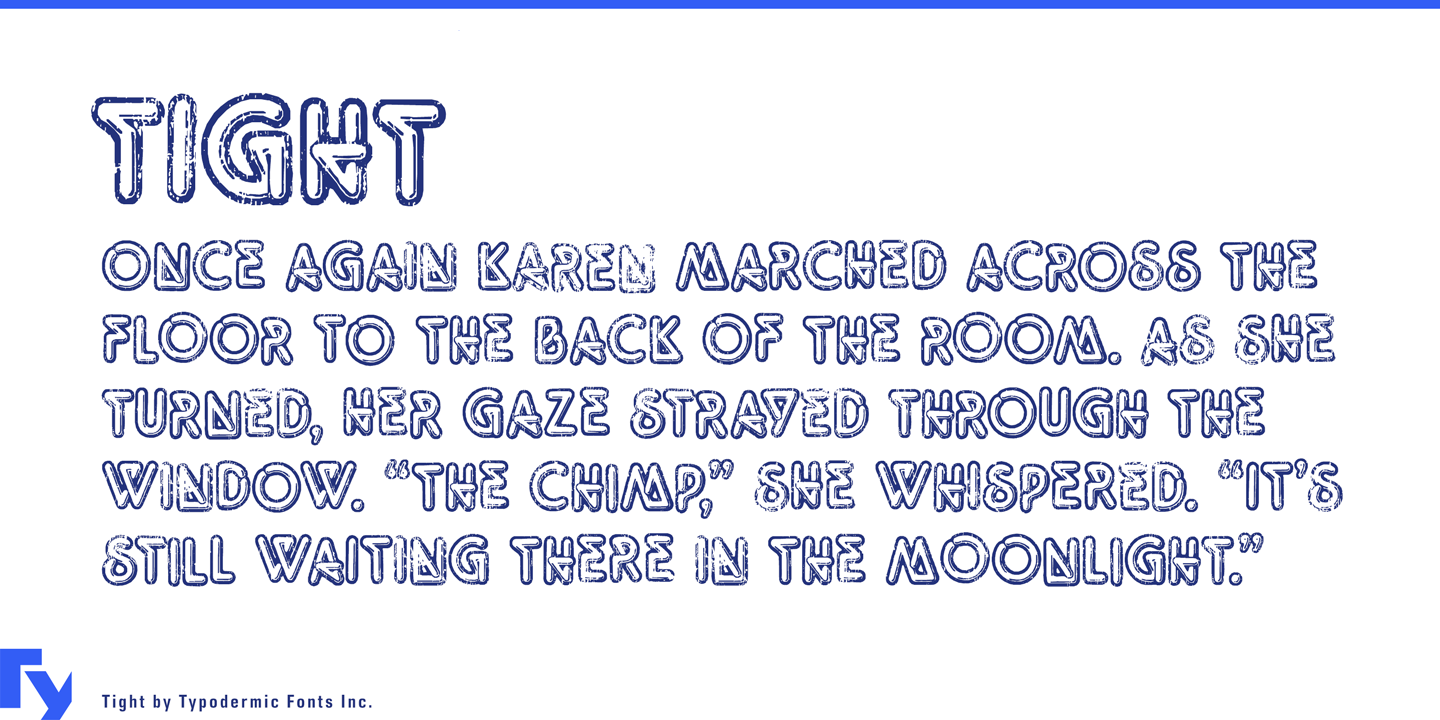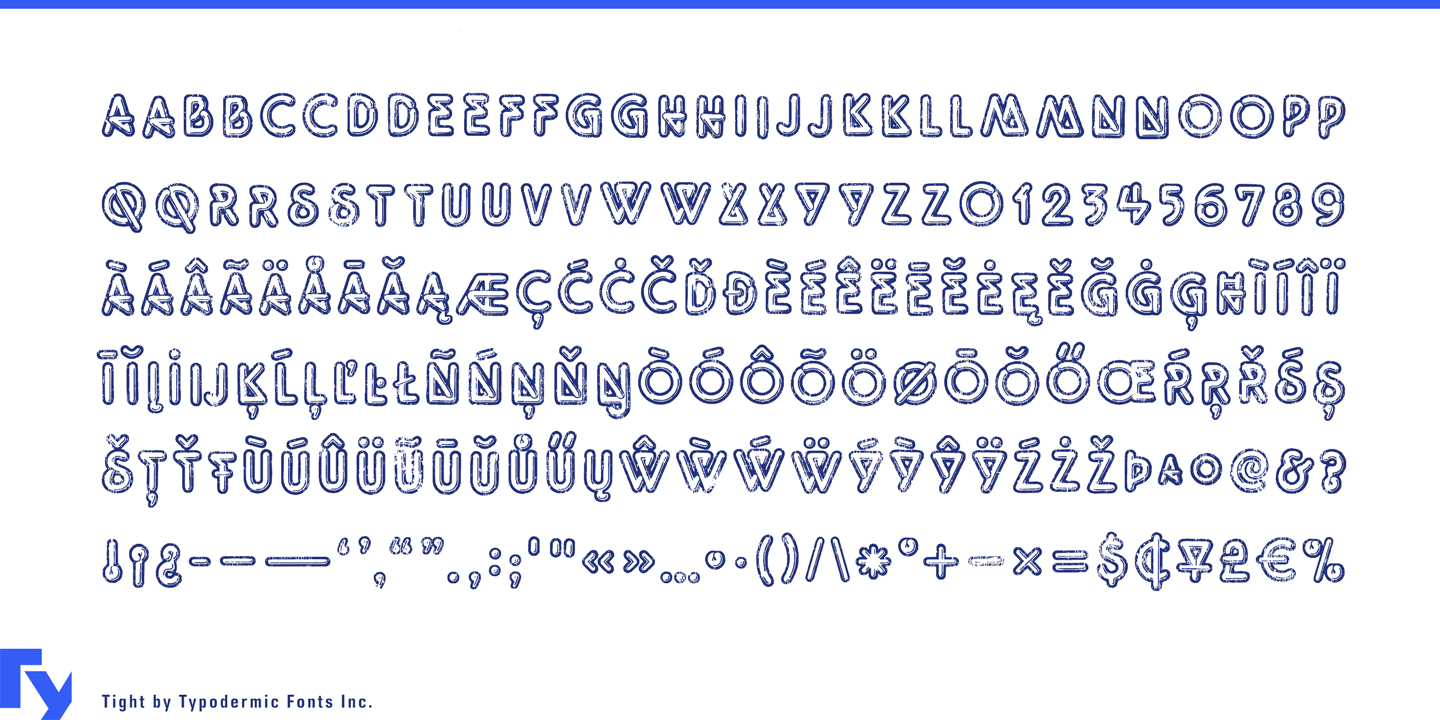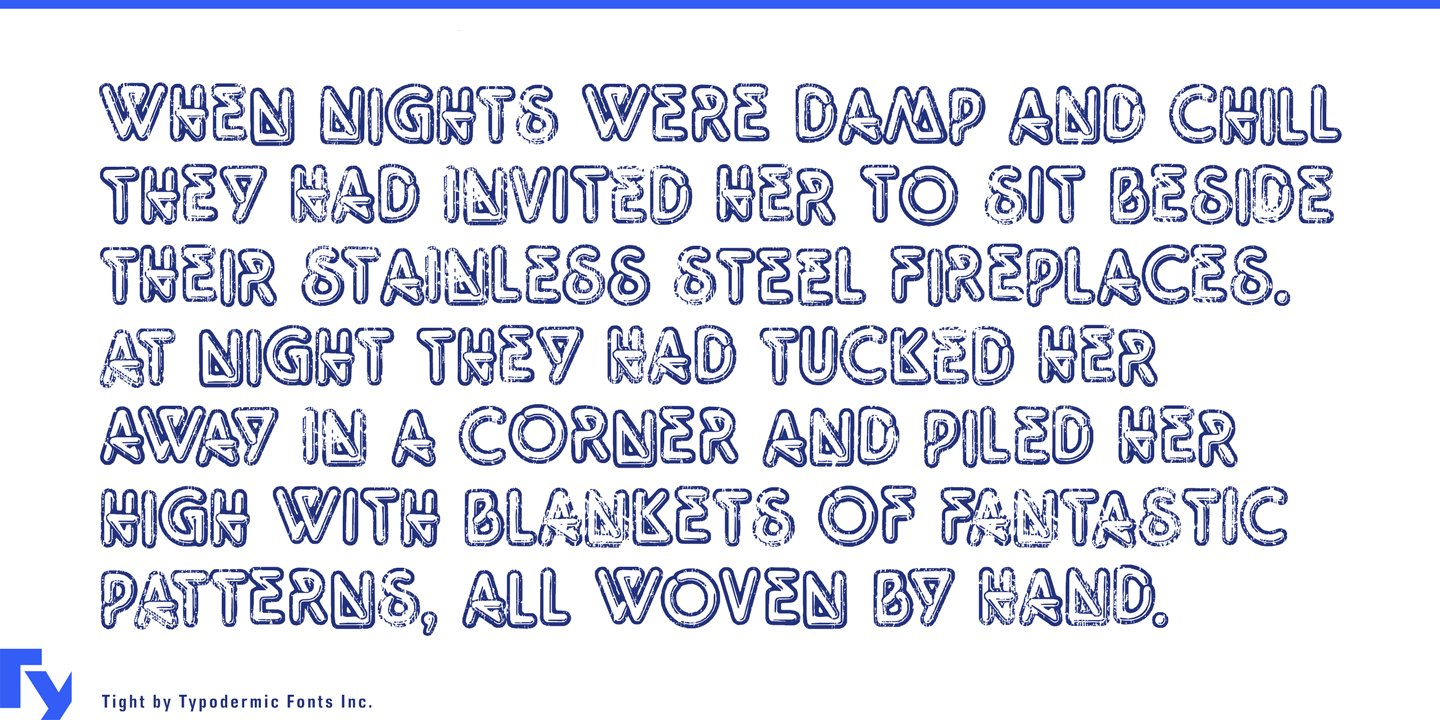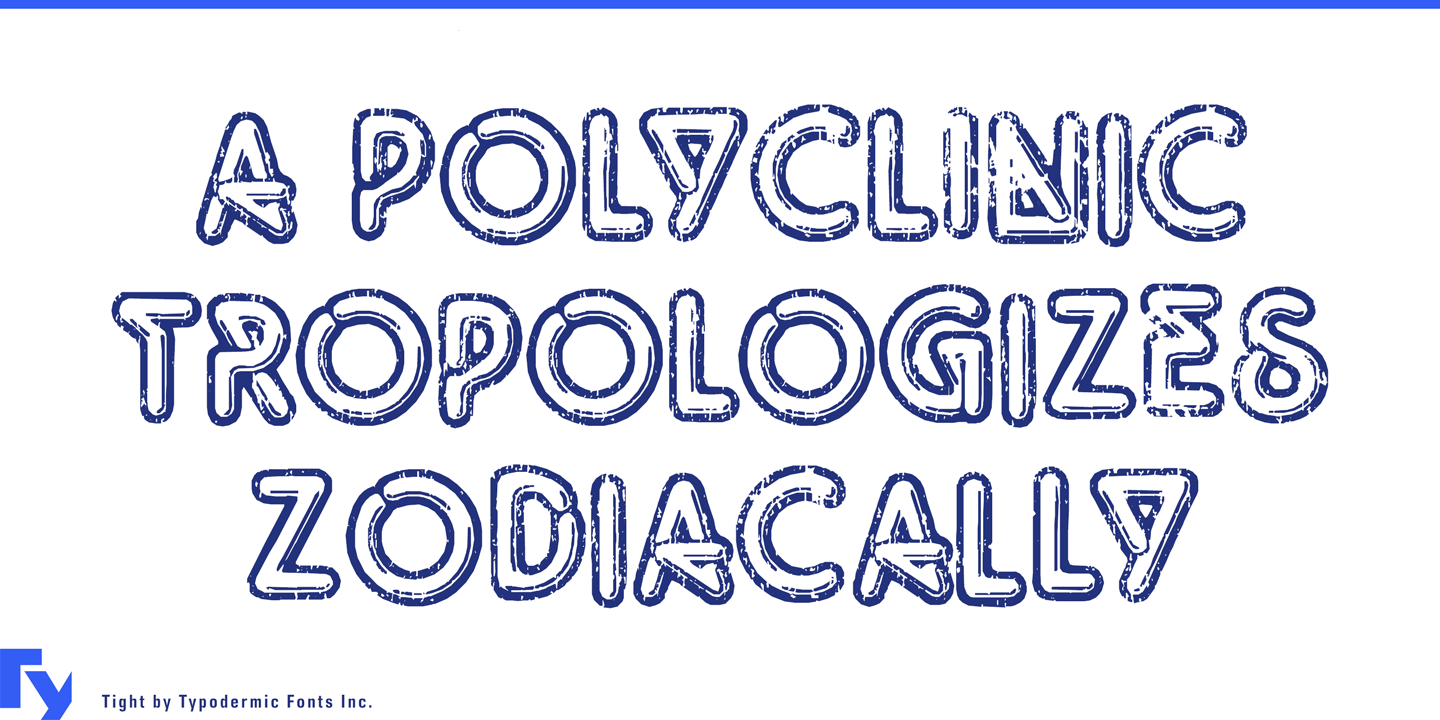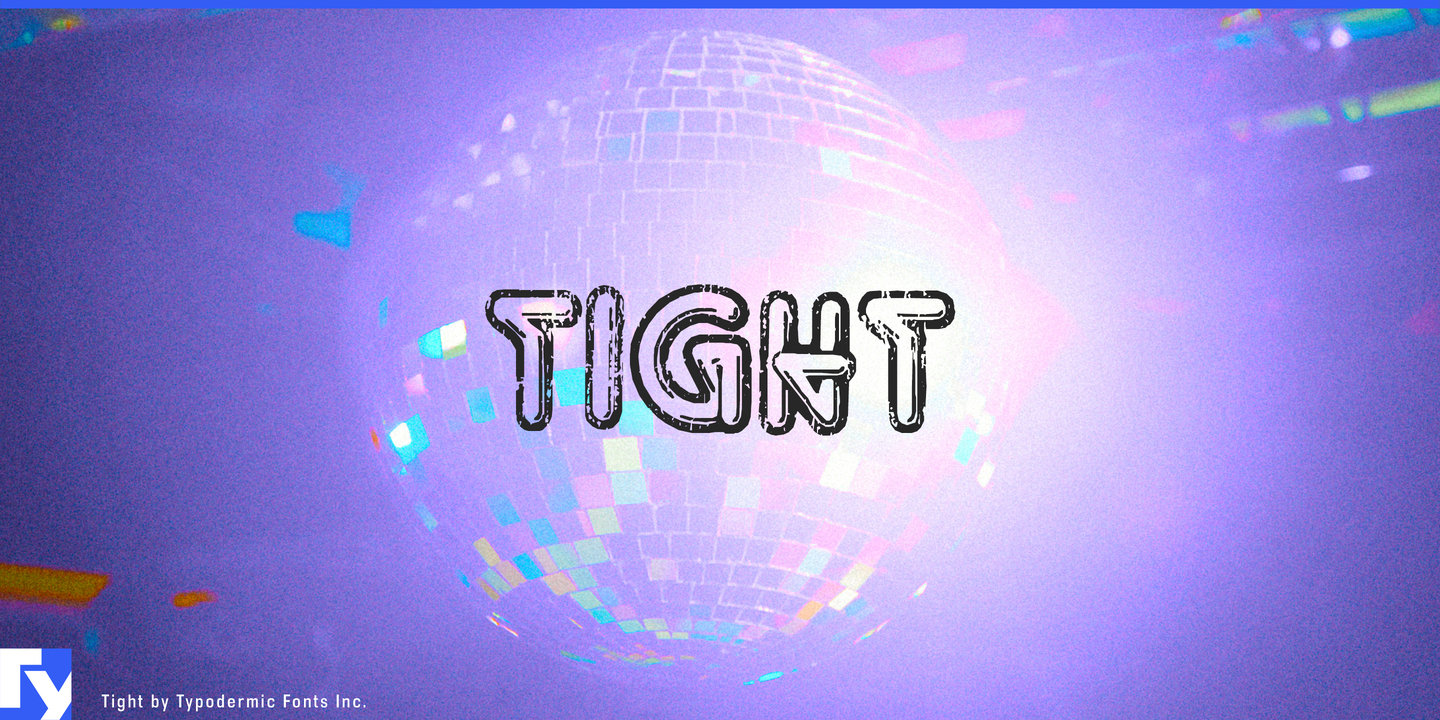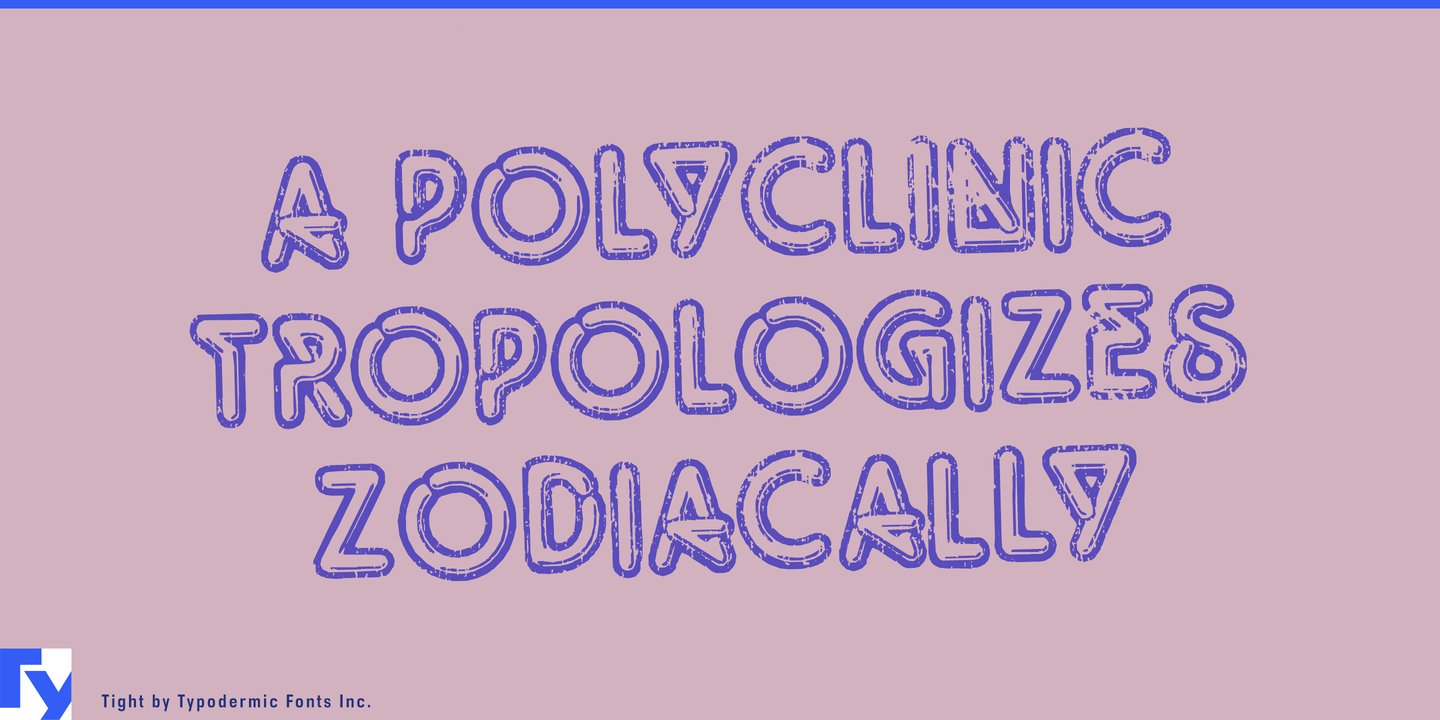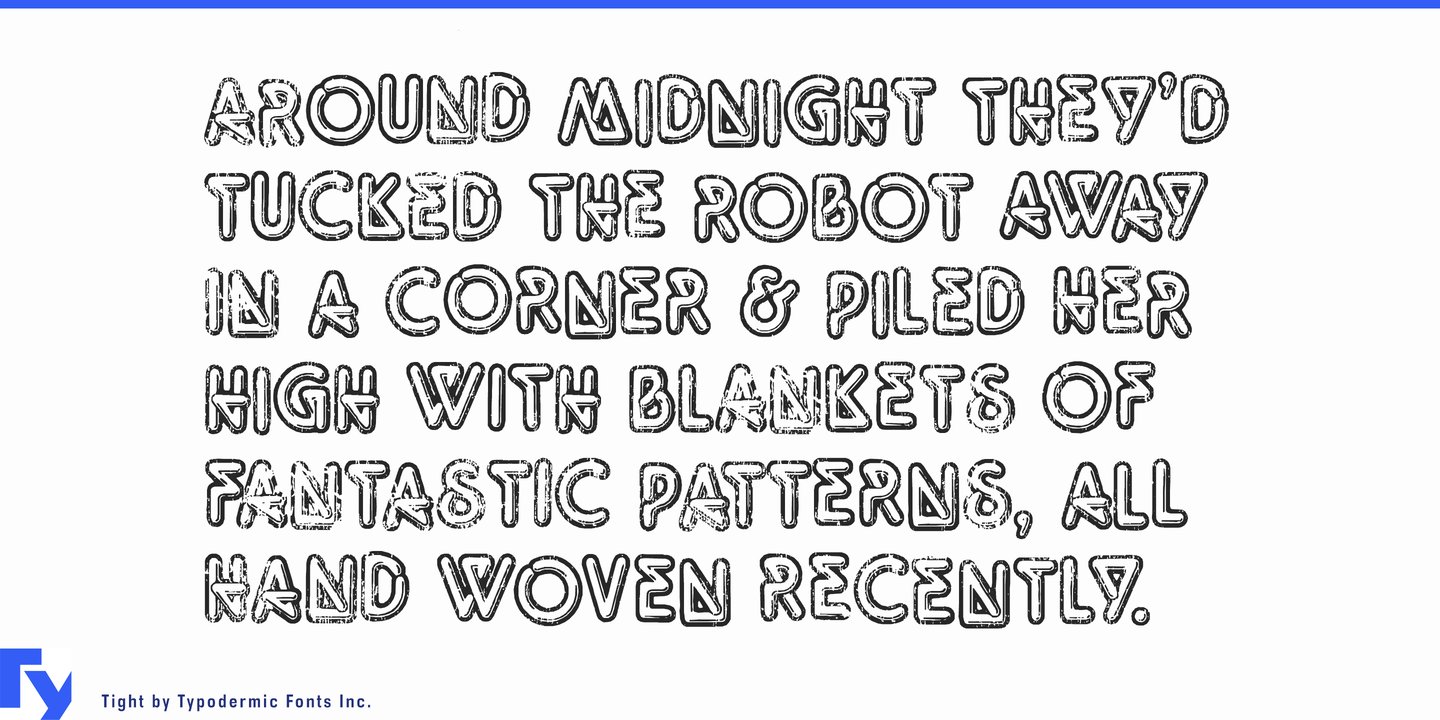
Dean originally contacted MyFonts’ WhatTheFont forum in 2007 with this post to explain the origins of his Letraset Quicksilver typeface. In 2009 he sent us a tidied up version for publication on this page.
The Story of Letraset’s Quicksilver typeface
I’m Dean Morris, the designer of the typeface ‘Quicksilver’ that came out in 1976 as part of Letraset’s Letragraphica range of rub-down typefaces — the stylishly aggressive ones in the yellow pages of the catalog. I named the typeface Quicksliver because it looked like bent thermometers (quicksilver is an old name for mercury which is used in thermometers), and because the word Quicksilver has some of the cooler letters such as Q, K, E, and R. I never meant it to suggest glowing neon.
The name Quicksilver was my second choice, however. Letraset Englishly felt that my first choice, ‘Polished Sausage’, would be ‘rather unpopular in foreign markets’. I designed it as a 16-year-old kid at John Glenn High School in Bay City, Michigan (born in Mercy Hospital 3 months after Madonna), and sent Letraset a xerox of a tight marker sketch of 3" letters letterspaced with the heavy outlines slightly overlapping as I originally intended. I drew only a skinny S without an alternate, and submitted no punctuation. I knew nothing about submitting typeface artwork and I assumed there’d be, you know, discussion.
But Letraset wanted it, and they must have wanted it REAL FAST (fifties nostalgia and disco were WHITE HOT then, remember), because they sent a letter and contract soon after, and they did the finished art themselves at 5" high (they can’t have known my age, maybe they had no confidence in my technical skills), starting with the E as did I in the design stage. And what a gorgeous rendering job they did in the pre-Mac days of ruling pens, straight-edges, and compasses (they shunned rapidographs!) — and they hand retouched the curves where they met the straight lines! Letraset sent a 5" sample E for approval, but I’m sure they had already drawn all the characters. They followed my sketch very closely, designed the punctuation, and suggested an alternate but weird wide S, which I approved, figuring there was probably no other decent way to design it. I don’t know if the thematically wrong heavy-overlap-line on the P came from me or them.
I assumed the punctuation would match the stroke width of the letters, but they drew them narrower and slightly oddly (what’s with those little dots in the periods and commas?), but I figured what did I know from diacriticals. I found out later that they produced a separate sheet of Quicksilver dots and dashes without my knowledge!
If you looked at the structure of the A, B, E, F, K, N, Q, R, or Y and wondered, ‘What was I thinking?’, I’ll tell you. I was simply trying to ‘draw’ as many letters as possible in the wrong direction — I thought I was SO clever! For instance the E cross-stroke goes right-to-left rather than left-to-right, like, oh, ANY OTHER ROMAN CAP E IN HISTORY. R and Q diagonals started waaaaaaaay on the other side, N goes waaaaaaay around the wrong way to form the diagonal. ‘Chrome’ letters can branch, but these ‘glass tube’ letters shouldn’t (did you hear that, dollar-sign?).
The first album cover I saw with Quicksilver was Men At Work’s first smash LP, Business as Usual , then punk pioneer Stiff Records’ logo appeared on 45-rpm labels with a clearly Quicksliver-inspired F. And it was popular, of course, for sex, drugs , and rock and roll. For about ten years I, family, and friends collected food packages, tear sheets and posters, and took photos of signs from around the world. I think it’s about the easiest typeface to mishandle ever. My friends dared each other to use it in 6 point body text.
Eventually home computers, Fontographer, scanners, etc. empowered amateur and professional designers alike. Crash went sales of rub-down type, my exclusive 15-year contract expired, and artwork was pirated without my knowledge and beyond my control, which I don’t condone, but I totally understand. I stopped trying to look for and collect examples of it. Maybe I’m overestimating its popularity now after 30 years (I totally forgot about it for about a decade), but still seeing it around at all is itself a rave. I can’t remember why I Googled ‘Quicksilver Letraset’ two years ago, but what I found was a whole community of sites for font identification with lists of their various names, where many bothered to accurately credit me as the original designer, which gets me RIGHT HERE. It makes me feel less forgotten even though I don’t see royalties. BTW, I never did, nor did Letraset ask me to, design a lower case version.